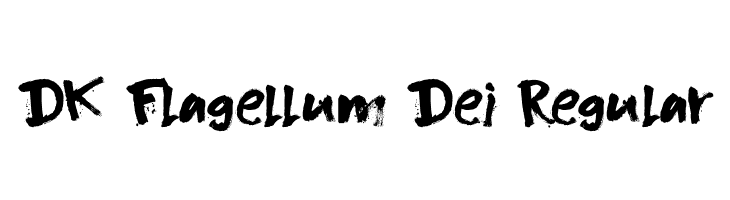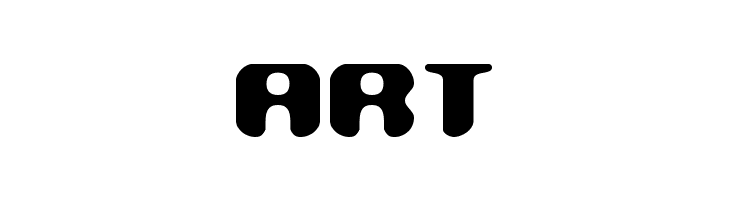
A casual, playful handwritten font with flowing strokes and a relaxed style.
A modern, geometric font with tall, narrow characters and sharp angles.
A bold, distressed font with a vintage, rugged appearance.
A bold, vintage-inspired serif font with sharp serifs and a commanding presence.
( Ariel Alvares )
A bold, modern sans-serif font with a clean and approachable design.
( 7NTypes - Situjuh Nazara - 7ntypes.com )
A bold, playful font with rounded edges and a friendly appearance.
( Fonts by Have Fun with Fonts )
A whimsical, decorative font with intricate swirls and curls.
( Fonts by Goma Shin - Shintarou Nakayama www.geocities.jp/gomarice_font/ )
A bold, rugged font with jagged, rock-like edges.